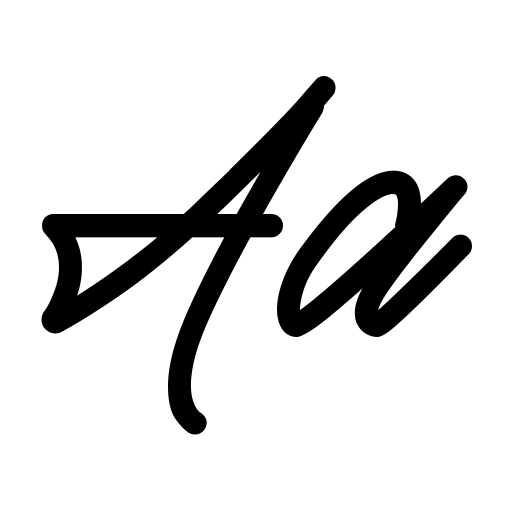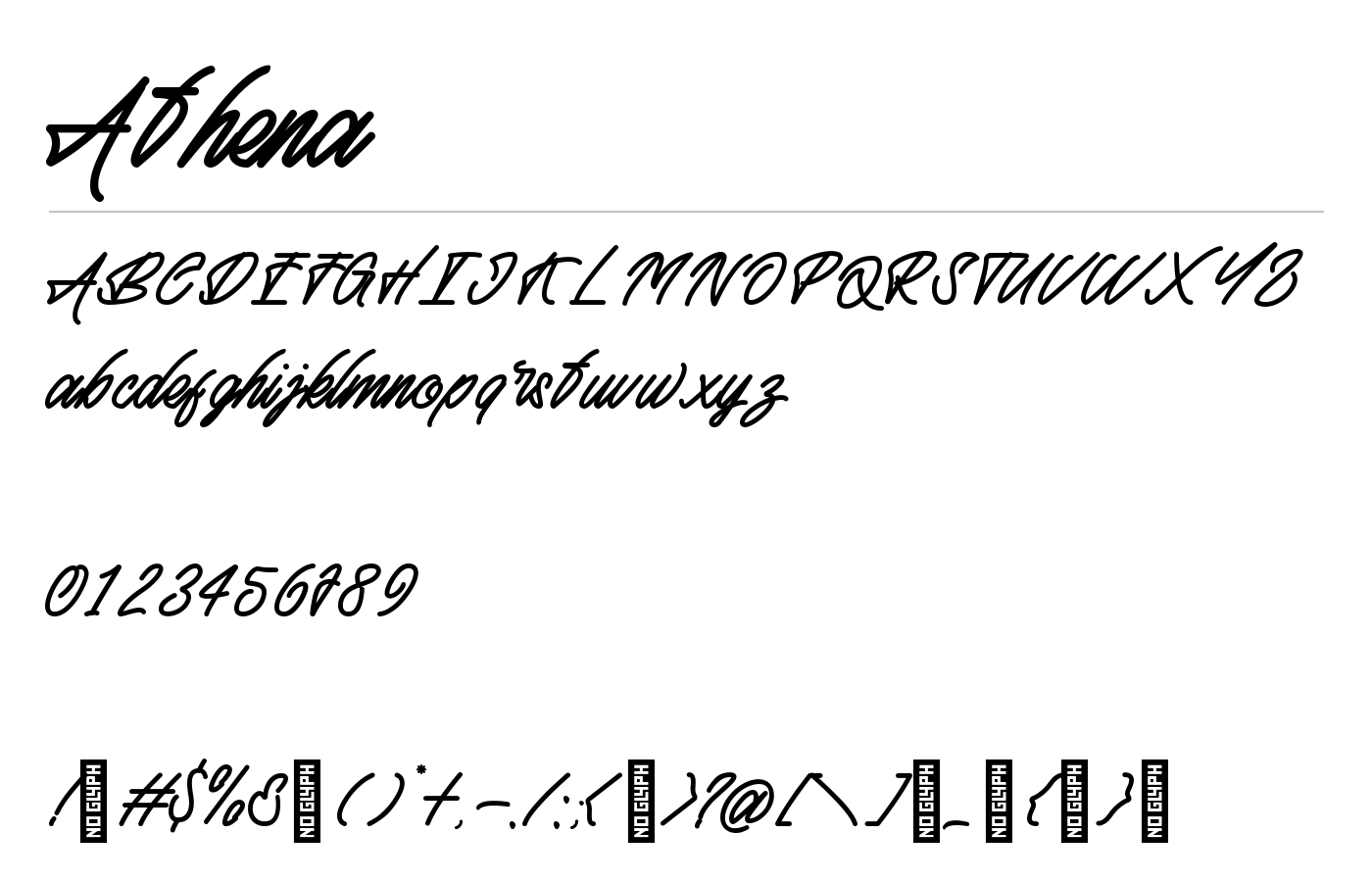
Athena Font is a stylish and elegant script typeface that features smooth, flowing strokes with moderate contrast, giving it a lively yet refined appearance. Its slightly condensed letterforms and cursive nature make it perfect for invitations, branding, and projects that seek a sophisticated, personal touch while maintaining readability. This font works especially well in decorative headlines or logos that want to convey charm and elegance with a modern flair.
Athena Font
About Athena Font